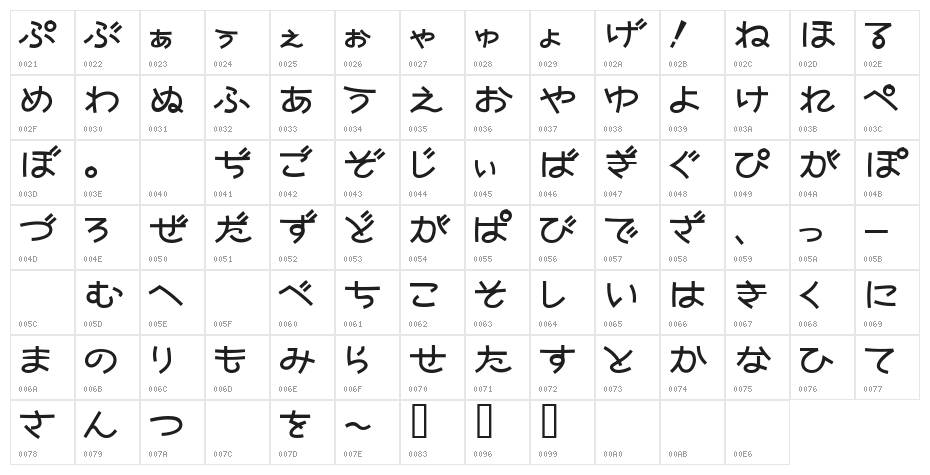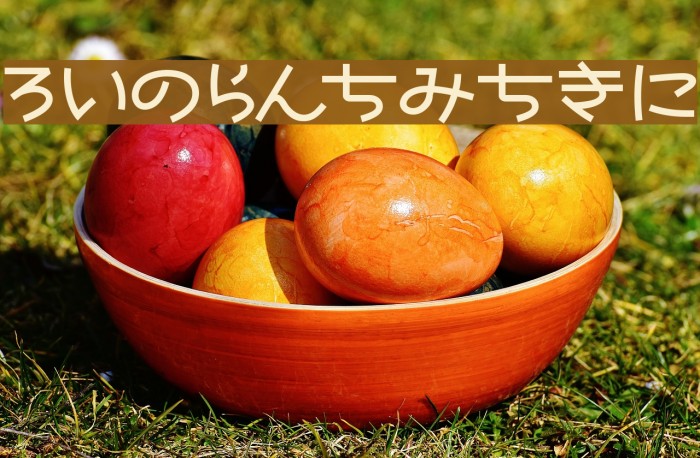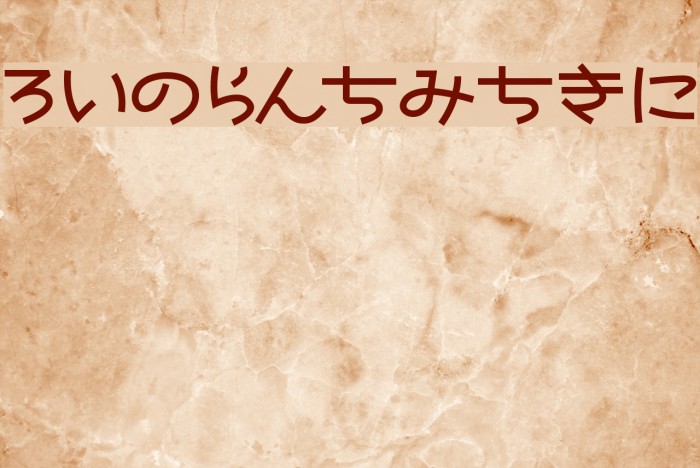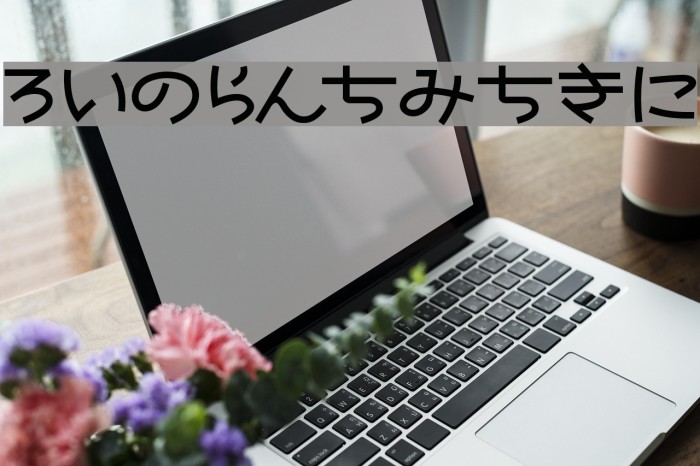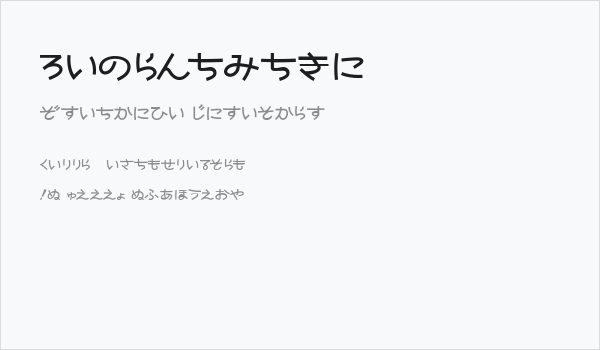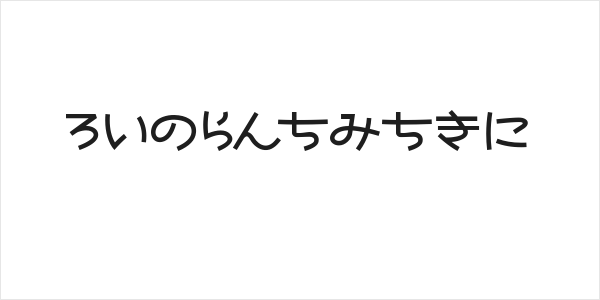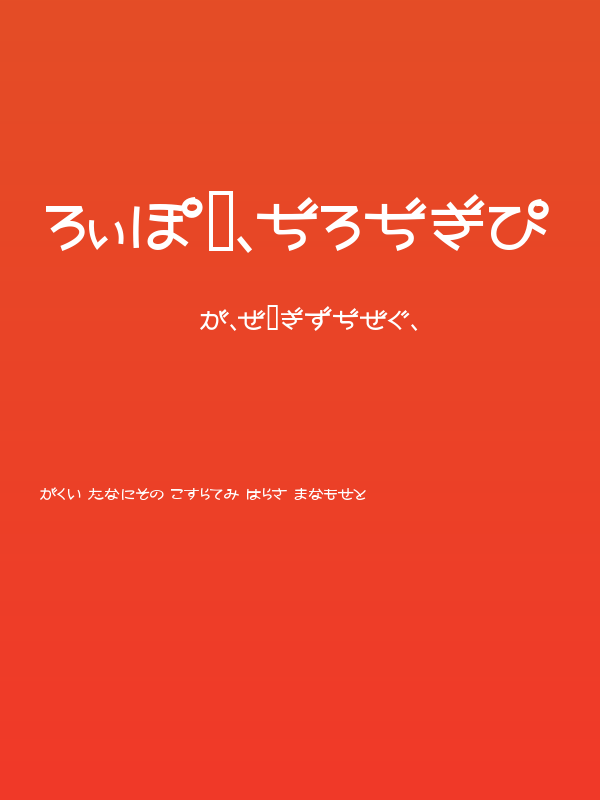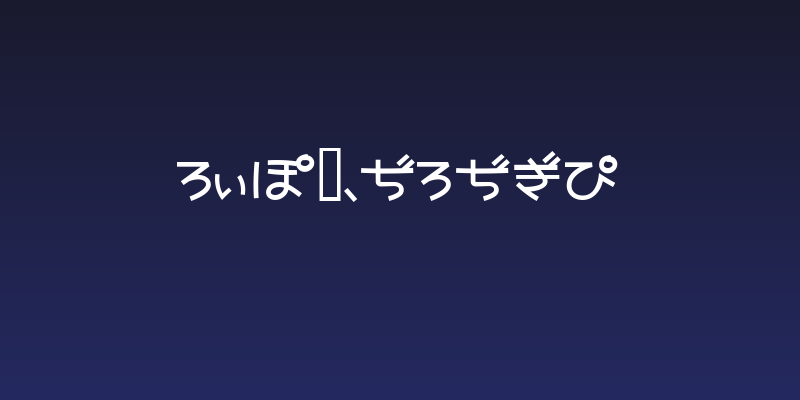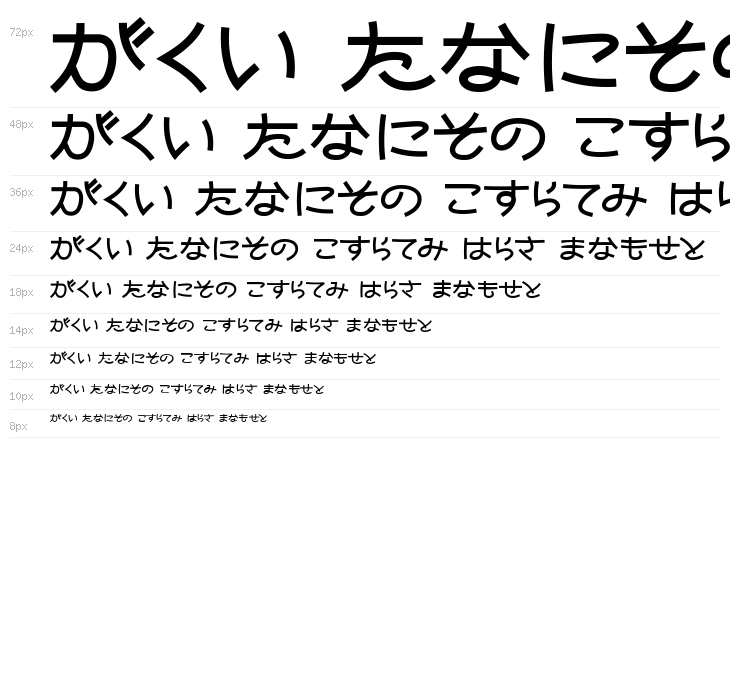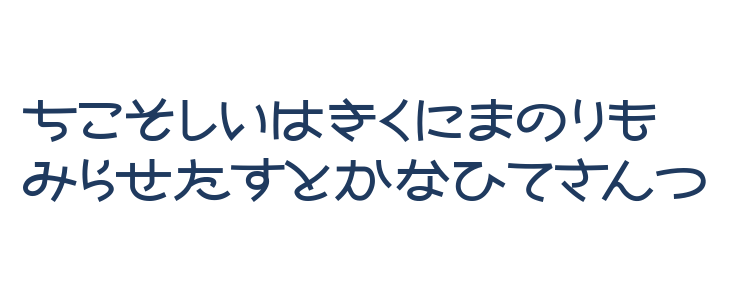
Nekoyanagi Font
Nekoyanagi Description
This font features a clean and modern design with a sans-serif style, characterized by its smooth and rounded edges. The characters are well-proportioned, providing a balanced and harmonious appearance. The strokes are consistent in thickness, contributing to a uniform look across all characters. The font maintains a clear and legible structure, making it suitable for various applications. Its simplicity and elegance make it versatile for both digital and print media. The spacing between characters is even, ensuring readability and a professional aesthetic.